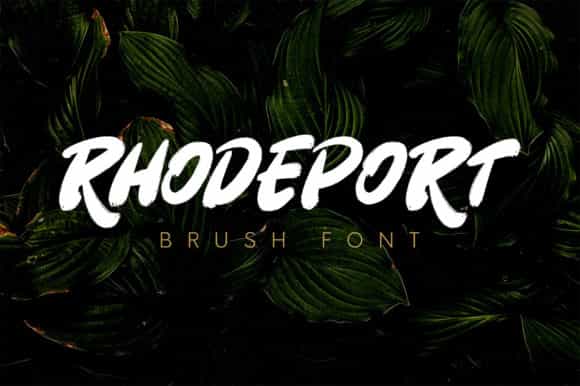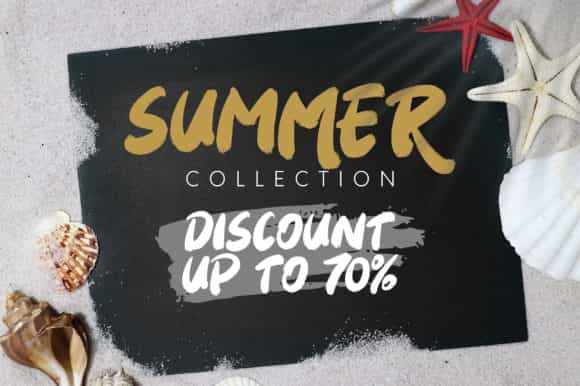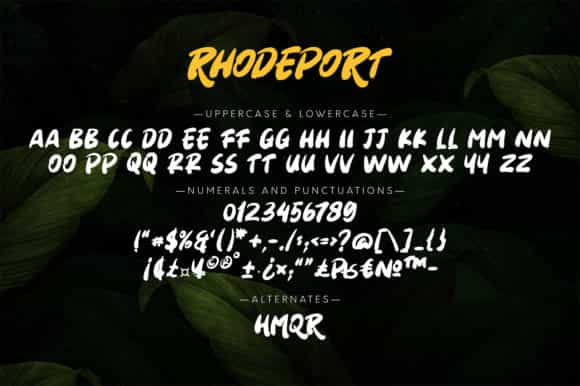
Rhodeport is a Clean and Bold Brush Script font, it is designed and shared by Omotu. A hand brush font with all uppercase glyphs, 2 styles: regular and slant. Rhodeport font is suitable for branding, logotype, apparel, T-shirt, Hoodie, product packaging, quotes, flyer, poster, advertising.